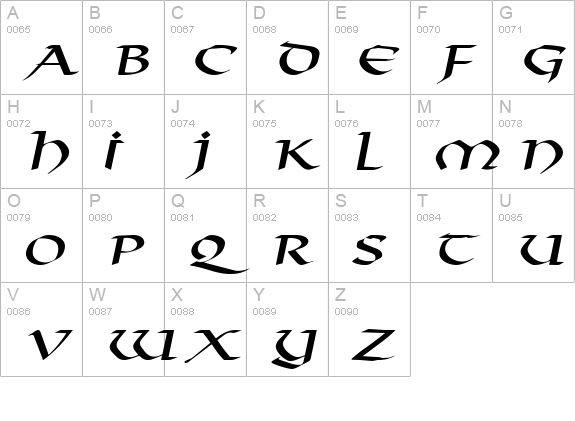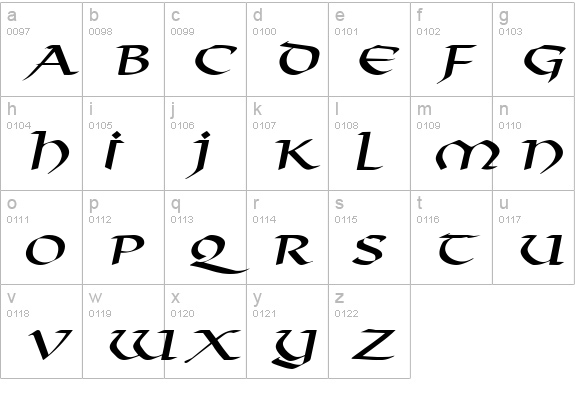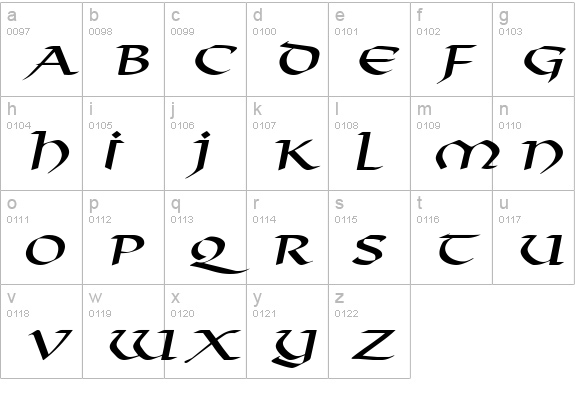
Valhalla Wide Italic is a distinctive, extended-width, italic variant in the Valhalla typeface family \xE2\x80\x94 well suited to design and typography projects.
Introducing Valhalla Wide Italic font, a remarkable typeface that effortlessly combines elegance and modernity. This font is the perfect choice for those seeking a touch of sophistication in their designs. With its sleek and stylish letterforms, Valhalla Wide Italic exudes a sense of confidence and creativity that will surely captivate any audience. Designed with versatility in mind, Valhalla Wide Italic offers a wide range of applications, from editorial layouts to branding projects and everything in between. Its italicized slant adds a dynamic flair, allowing your text to flow gracefully across the page while maintaining readability and legibility. But what truly sets Valhalla Wide Italic font apart is its availability. Yes, you heard it right - this exceptional font is free! You can easily download it at FontsMarket.com, a trusted source for high-quality typefaces. With Valhalla Wide Italic, you can enhance your designs without breaking the bank. Whether you're a graphic designer, typographer, or simply a creative enthusiast, Valhalla Wide Italic font is a must-have in your collection. Its seamless integration into various design projects, coupled with its free availability, makes it an invaluable asset. So why wait? Download Valhalla Wide Italic today and embark on a journey of creativity and expression like never before.